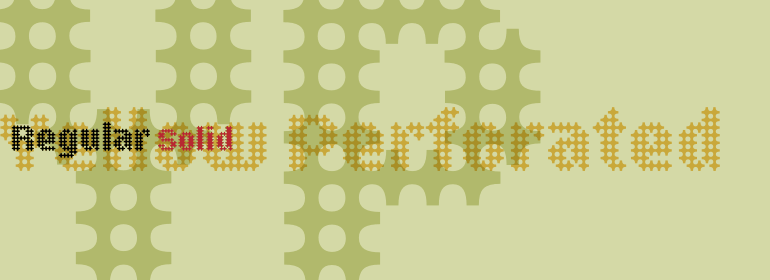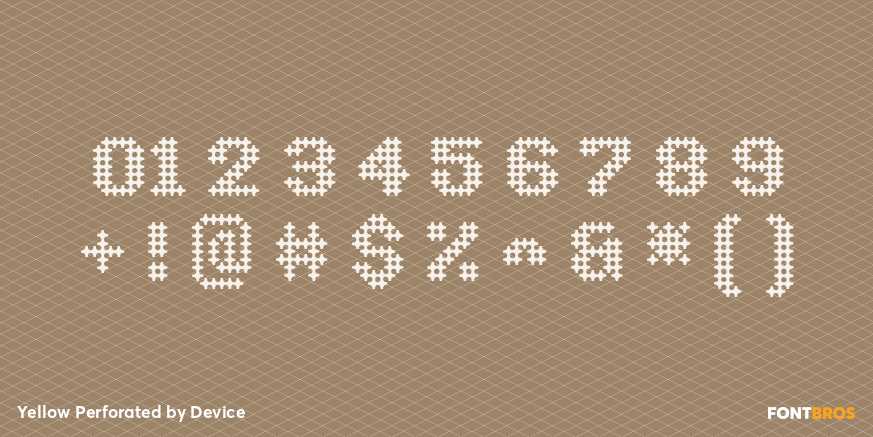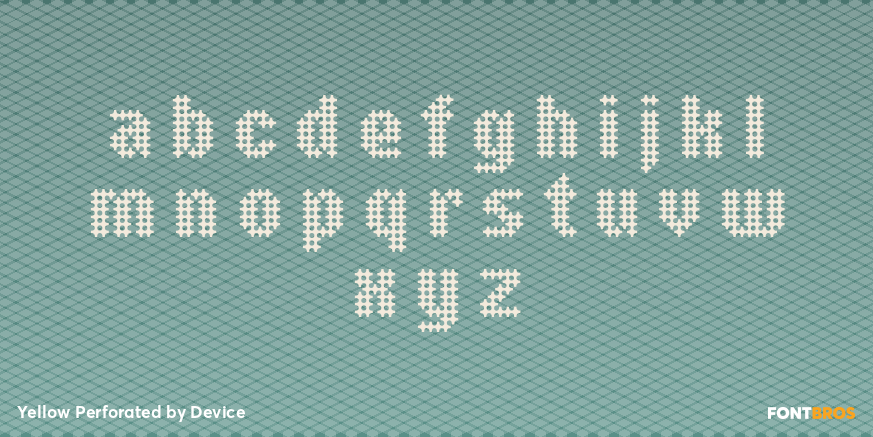
Yellow Perforated
Font Family by Device
Yellow Perforated is a decorative display sans serif with a distinctly industrial, grid-based feel. Its perforated, dotted-edge construction gives the letterforms a mechanical, high-contrast look that feels modular, geometric, and a little bit experimental.
This family includes 2 styles—Yellow Perforated Regular and Yellow Perforated Solid—giving you two ways to work with its punched-hole effect. It’s a natural fit for posters, tech-forward branding, signage, packaging, and other display settings where a novelty-driven, special-effect look can carry the design.
Designed by Device, this is the kind of type family that brings structure and attitude at the same time. Use it when you want bold typography that feels engineered, contemporary, and visually distinctive without losing its clean sans serif foundation.